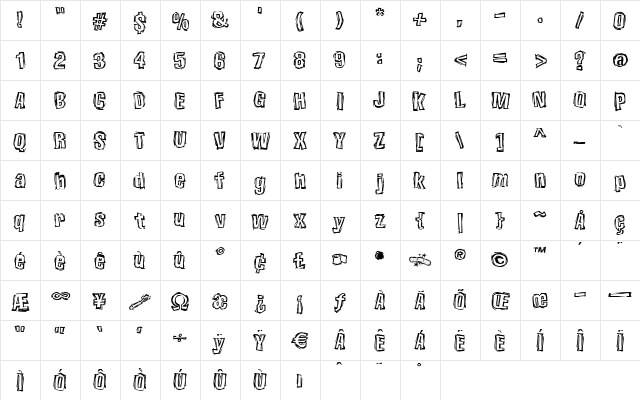
OWOHunkyDory Regular
Design Context for OWOHunkyDory Typeface
OWOHunkyDory is a composed and adaptable typeface that performs quietly and consistently across a wide range of design contexts.